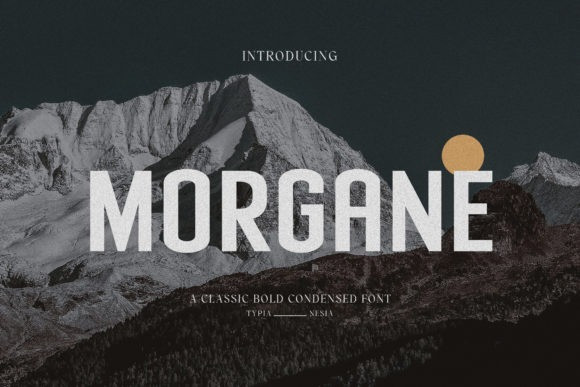
Morgane Font
Morgane is a classic and retro styled sans serif font.
It is perfect for any branding project such as logos, t-shirt printing, creative products, and more. It will look extraordinary in a variety of contexts.